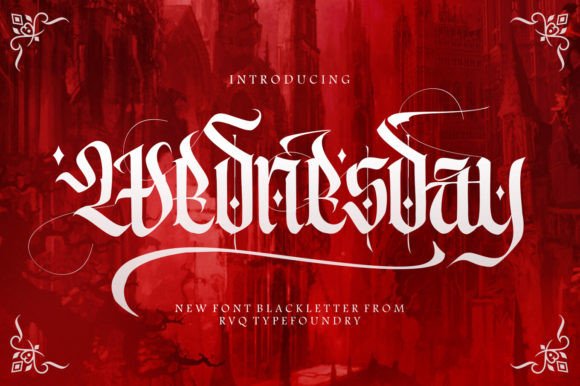
Wednesday Font: Elevate Your Design with Elegance and Sophistication
The world of typography is vast and diverse, with numerous fonts available to cater to various design needs. Among these, the Wednesday font stands out for its classy, elegant, and vintage feel. This typeface is designed to add a touch of sophistication to any design project, making it a popular choice among designers and typography enthusiasts. In this article, we’ll delve into the features, benefits, and uses of the Wednesday font, exploring how it can elevate your design to new heights.
The Wednesday Typeface: A Classy, Elegant, and Vintage Feel
The Wednesday typeface is characterized by its unique blend of classic and modern elements, resulting in a distinctive vintage feel. The font’s design is inspired by traditional typography, with subtle nuances that give it a contemporary twist. The overall effect is a classy and elegant appearance that exudes sophistication and refinement.
Key Features of the Wednesday Font
- Full set of capital and lowercase letters: The Wednesday font includes a comprehensive set of uppercase and lowercase letters, ensuring that you have all the characters you need for your design project.
- Multi-lingual support: This typeface supports multiple languages, making it an excellent choice for designers working on international projects or those who need to create content for diverse audiences.
- Currency figures, numerals, punctuation, and extra glyphs: The Wednesday font comes with a range of additional features, including currency symbols, numerals, punctuation marks, and extra glyphs, providing you with a wide range of creative possibilities.
- Alternative glyphs: One of the standout features of the Wednesday font is its alternative glyphs, which allow you to create beautiful combinations by mixing and matching different characters.
- Vector bonus: The font comes bundled with a vector bonus, providing you with a versatile and scalable design element that can be used in various applications.
Mixing and Matching: Creating Beautiful Combinations with Wednesday Font
One of the unique aspects of the Wednesday font is its ability to create beautiful combinations by mixing and matching uppercase and lowercase letters, as well as alternative glyphs. This flexibility allows designers to experiment with different styles and effects, resulting in a distinctive look that sets their work apart.
The Benefits of Using Wednesday Font in Your Design
The Wednesday font offers numerous benefits for designers, including:
- Elegance and sophistication: The Wednesday font adds a touch of class and refinement to any design project, making it ideal for luxury brands, high-end products, or sophisticated marketing campaigns.
- Versatility: With its comprehensive character set and alternative glyphs, the Wednesday font can be used in a wide range of design applications, from print and digital materials to branding and advertising.
- Creativity and flexibility: The font’s unique features and mix-and-match capabilities allow designers to experiment with different styles and effects, ensuring that their work stands out in a crowded design landscape.
- Professionalism: The Wednesday font is designed to meet the needs of professional designers, providing a high-quality typeface that reflects their expertise and attention to detail.
Tips and Best Practices for Using Wednesday Font
To get the most out of the Wednesday font, consider the following tips and best practices:
- Experiment with different combinations: Take advantage of the font’s alternative glyphs and mix-and-match capabilities to create unique and eye-catching effects.
- Use it sparingly: The Wednesday font is designed to make a statement, so use it judiciously to avoid overwhelming your design.
- Pair it with complementary fonts: Combine the Wednesday font with other typefaces that complement its elegant and sophisticated style, creating a harmonious and visually appealing design.
- Pay attention to typography: Ensure that your use of the Wednesday font is consistent with your brand’s typography guidelines, maintaining a cohesive and professional appearance across all design materials.
The Wednesday font is a versatile and elegant typeface that offers a unique blend of classic and modern elements. With its comprehensive character set, alternative glyphs, and vector bonus, this font provides designers with a powerful tool for creating sophisticated and refined designs. By understanding the features, benefits, and best practices for using the Wednesday font, designers can unlock its full potential and elevate their work to new heights.